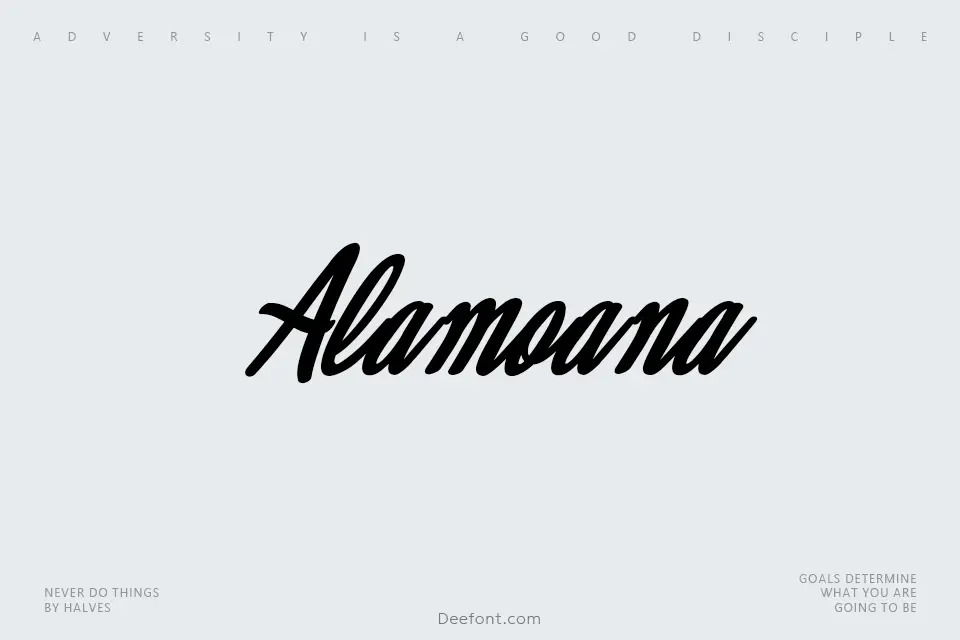
Alamoana Font
Alamoana Font is a bold retro script display typeface inspired by vintage bar signage, tattoos and surf culture. Its condensed letterforms, sweeping curves and textured strokes create a strong old-school vibe perfect for logos, posters, packaging, apparel branding and dramatic headline typography.
Designed by:Billy Argel Fonts ®Website